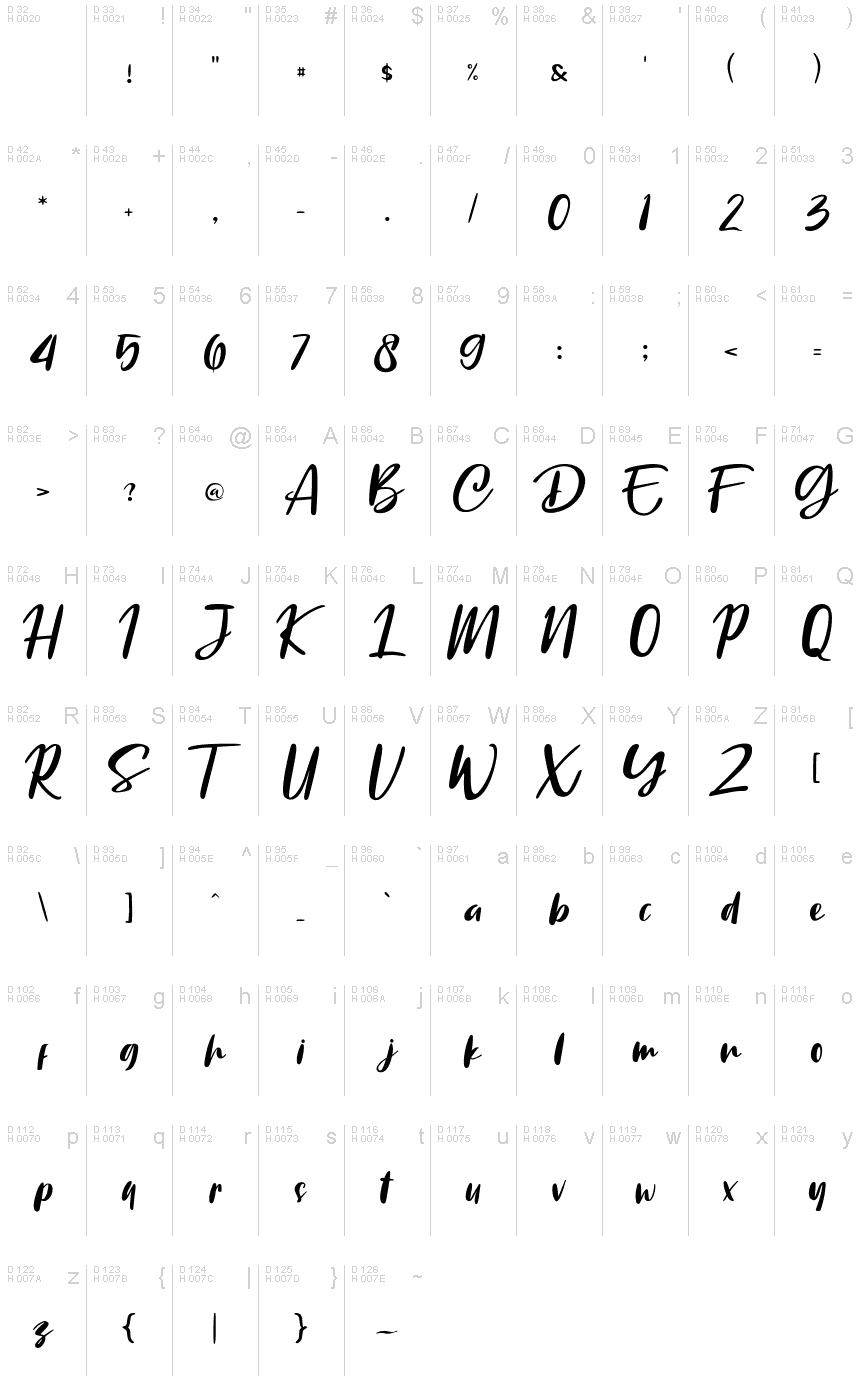
rachel
darnoway_desain_creativ fonts that are very suitable for invitation letters, posters, logos, and others in addition to making the font more beautiful and pleasing to the eye.